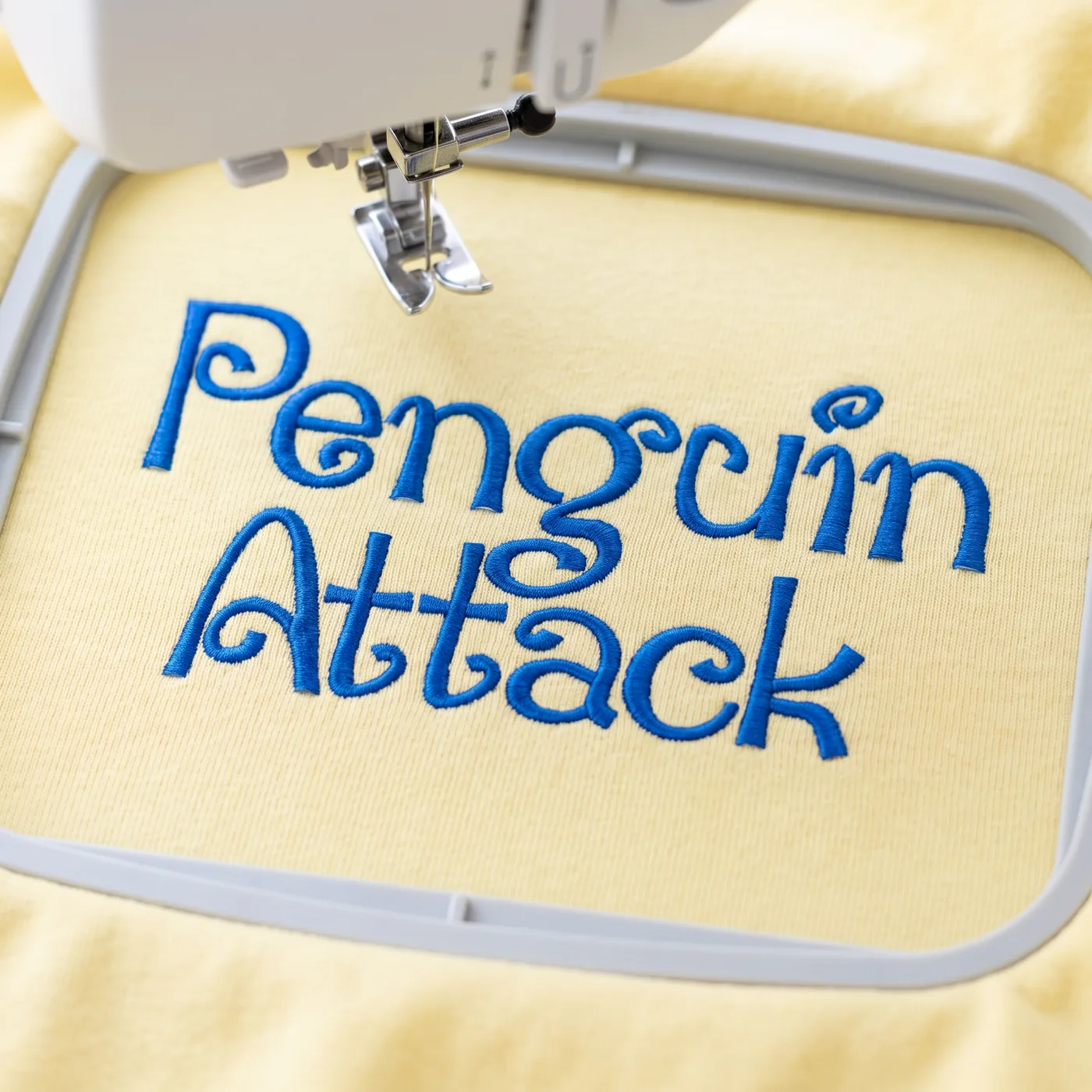
Penguin Attack Font Embroidery Design
Penguin Attack Font Embroidery Design, a botanical motif that looks its best on linen, cotton and light fabrics.
Floral fills catch the light: turn the hoop so the petal stitching runs across the light rather than along it.